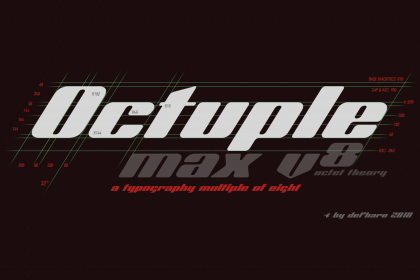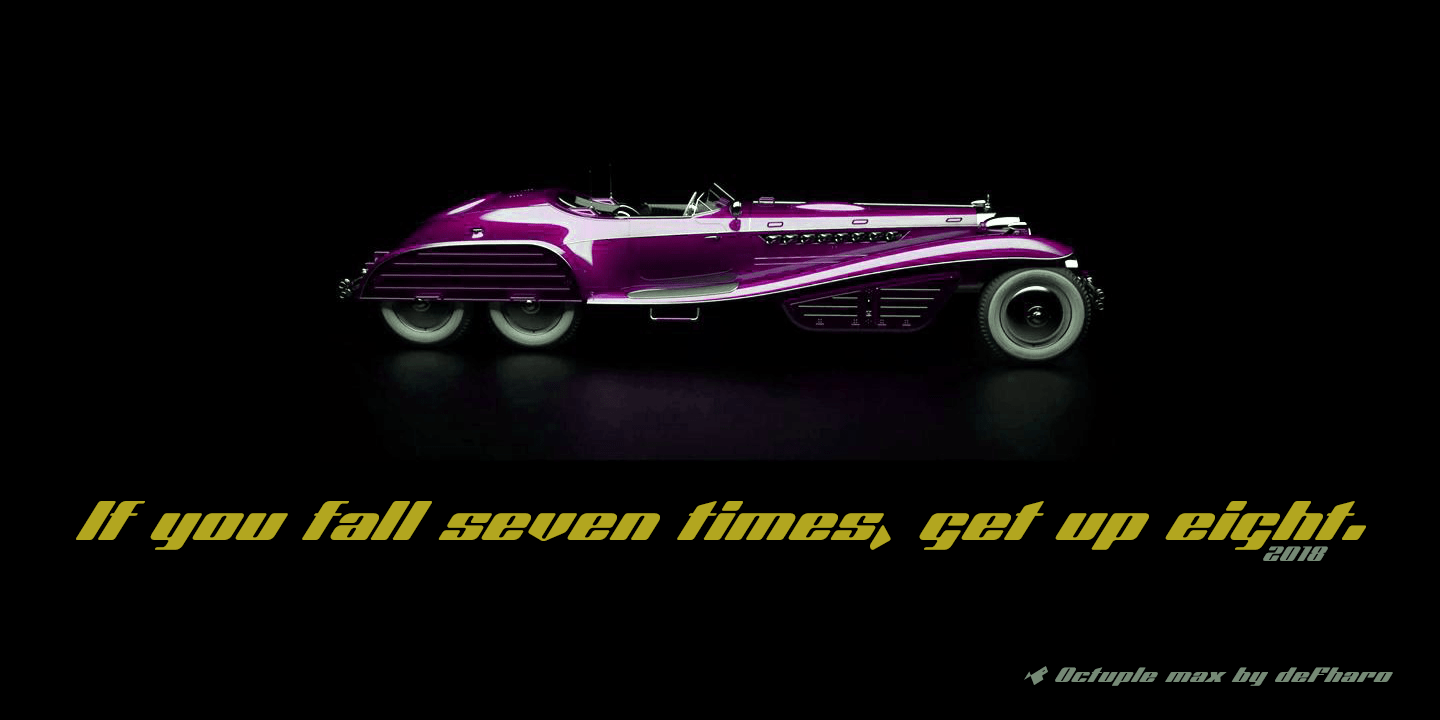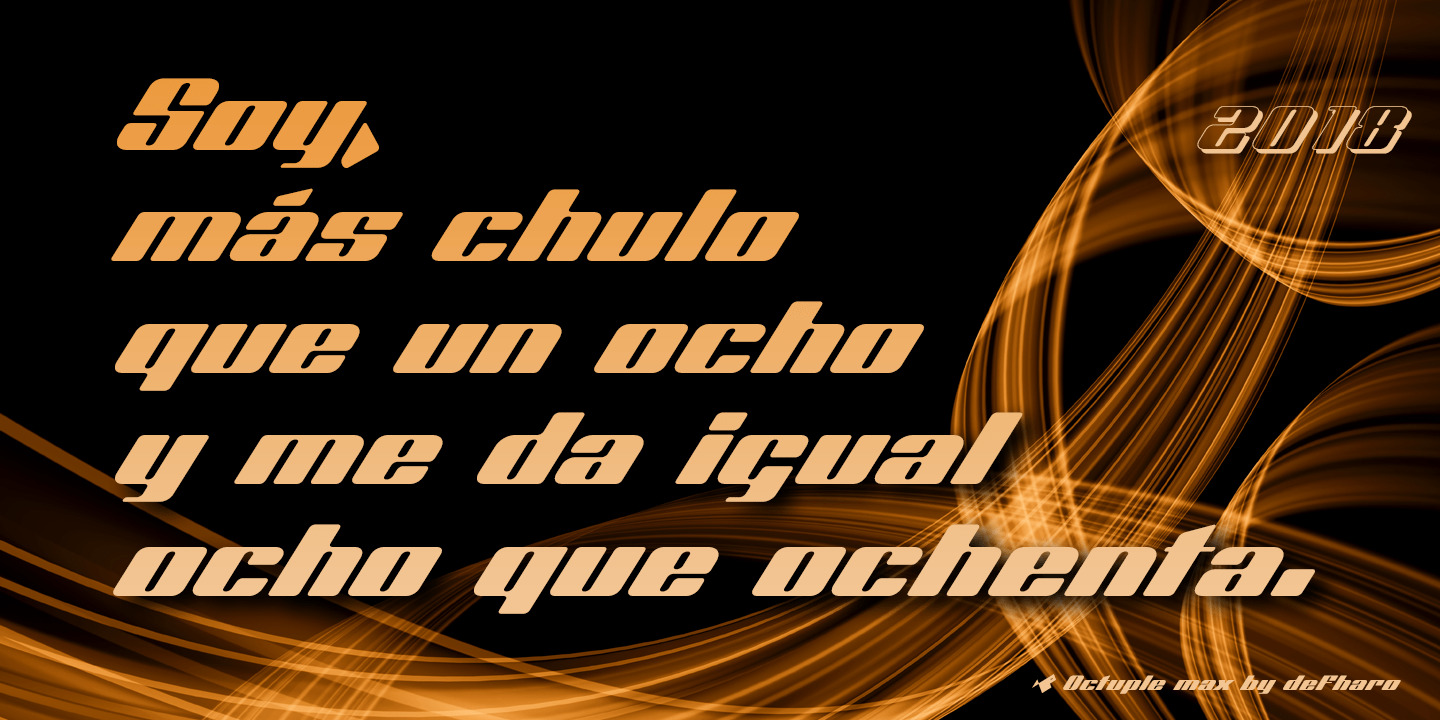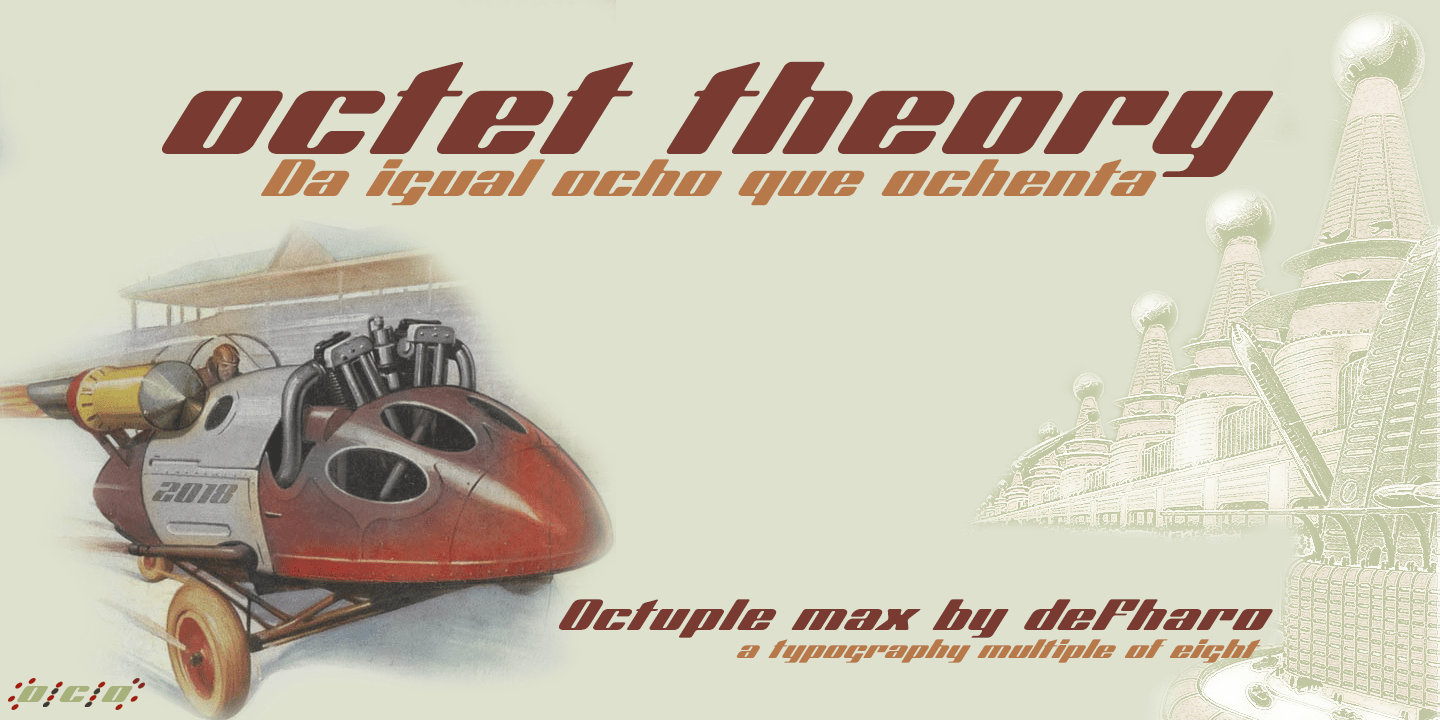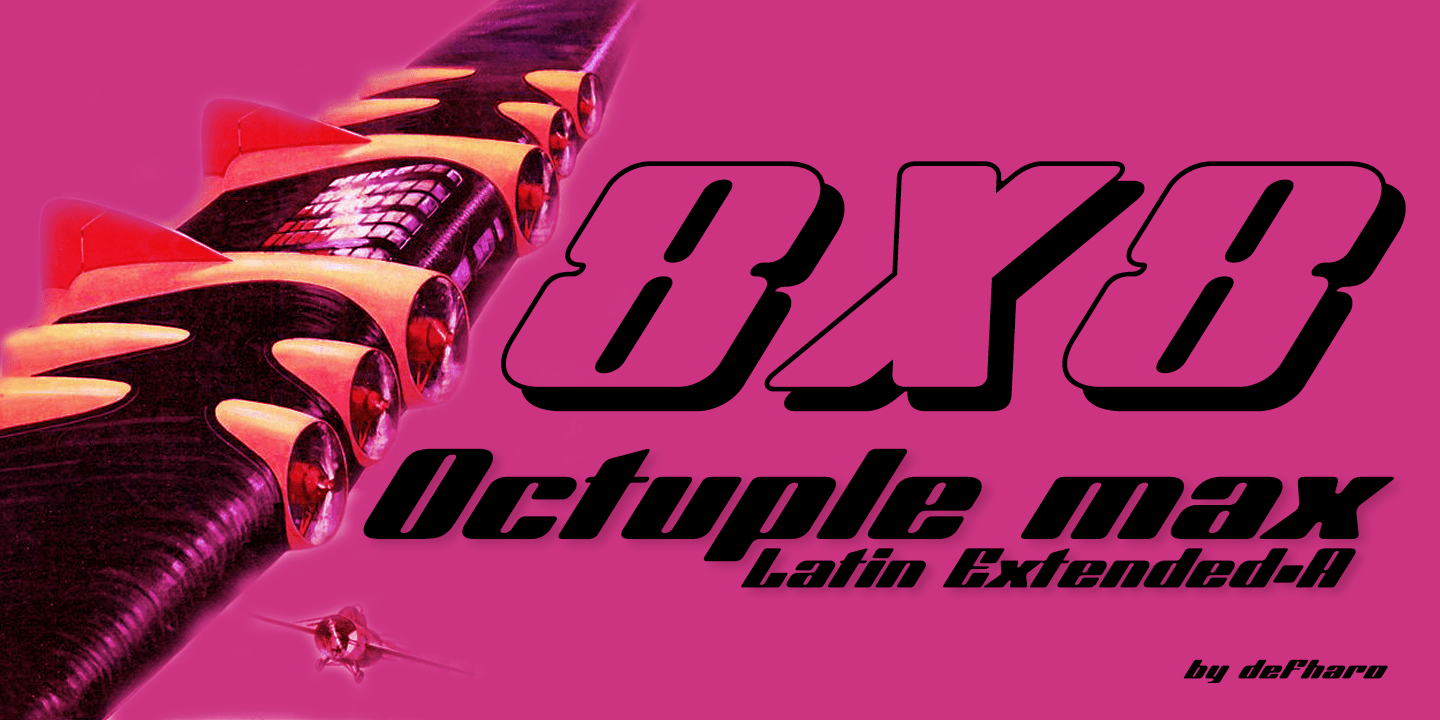
Octuple Max Font
Octuple max is a typographic experiment where all the proportions and measures of the characters and metrics are multiples of the number eight. The result is a very steep typography of square proportion with a great contrast between the horizontal/vertical horns and rounded in all corners.
I started with an inclination of 32° for all the letters, then I built a grid with horizontal divisions of 48/u of height, so I defined the height of the x: 48×11=528/u, the height of the capitals and ascenders: 48×16=768/u, the descending ones: 48×4=192/u and the baseline of the diacritical accents: 48×17=816/u.